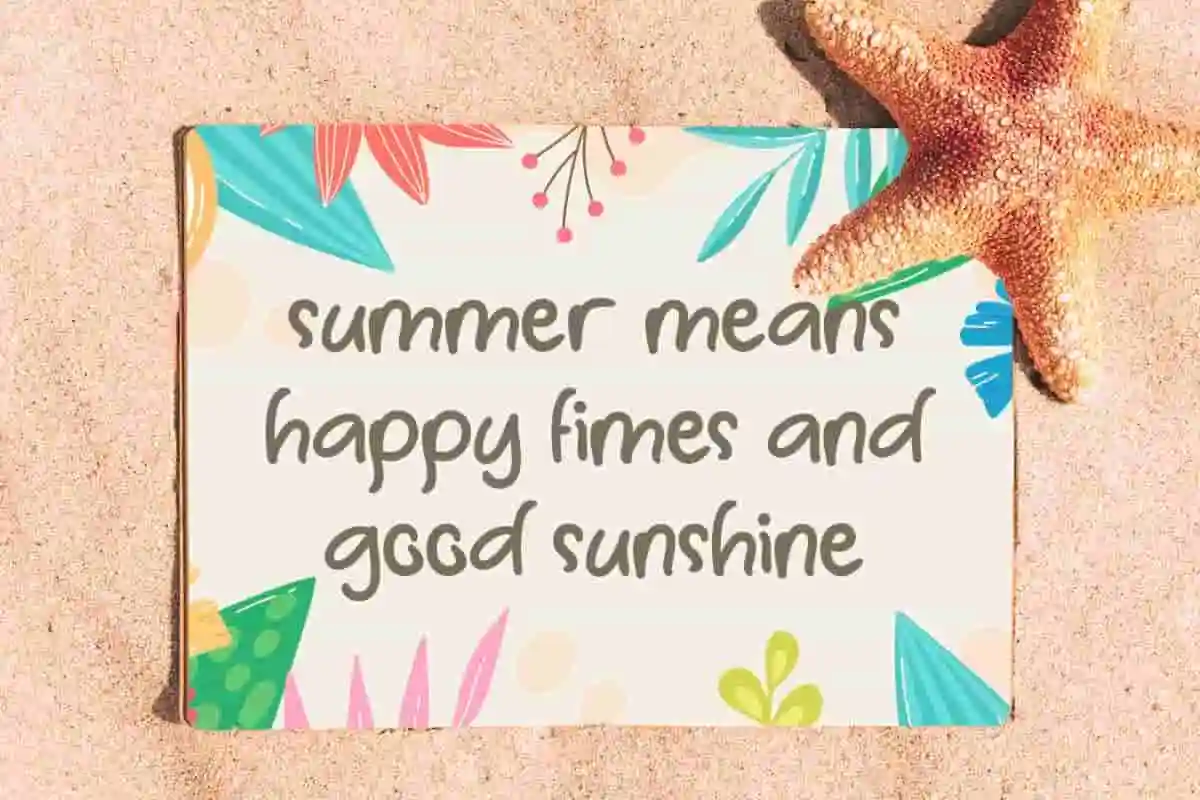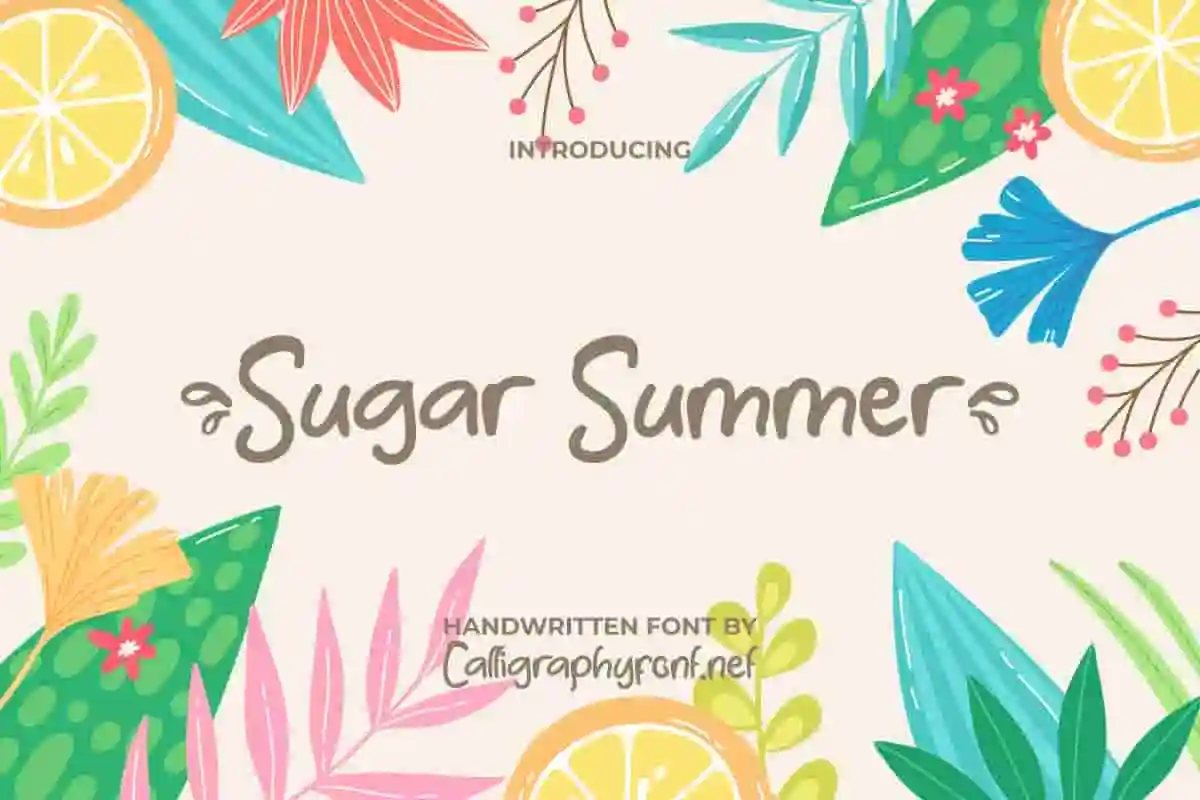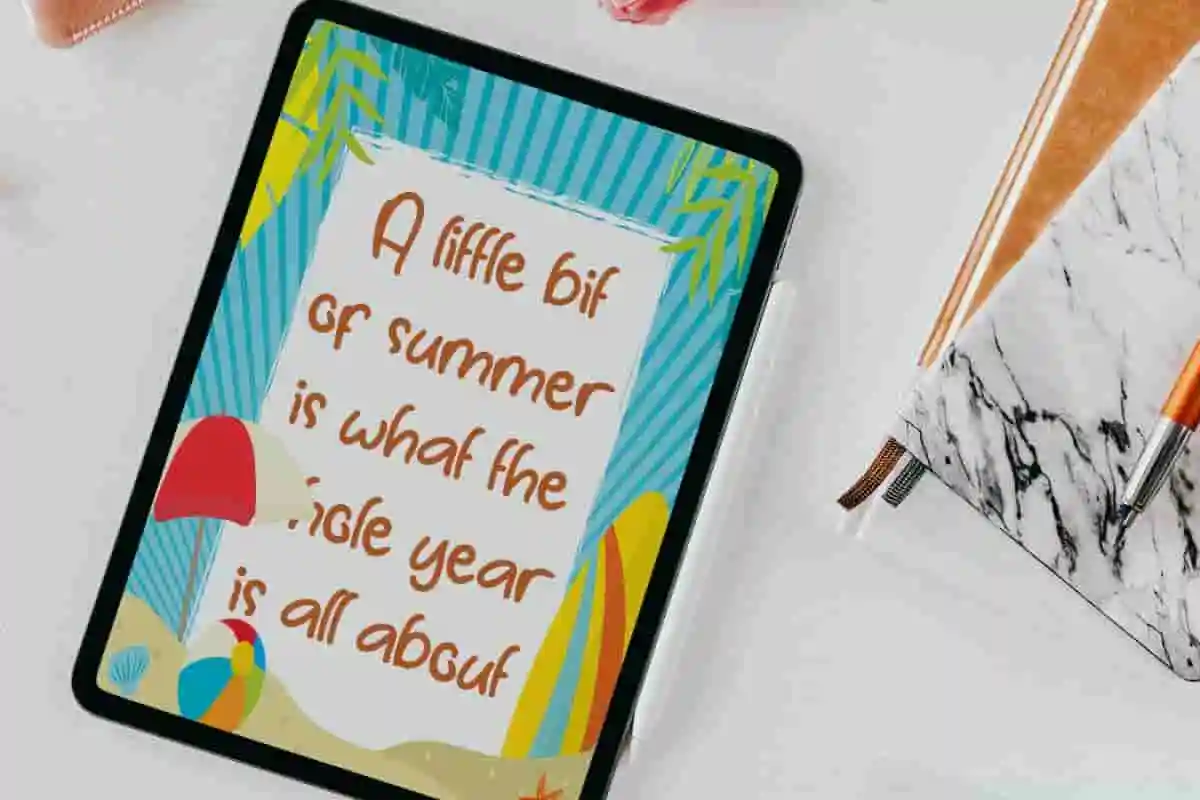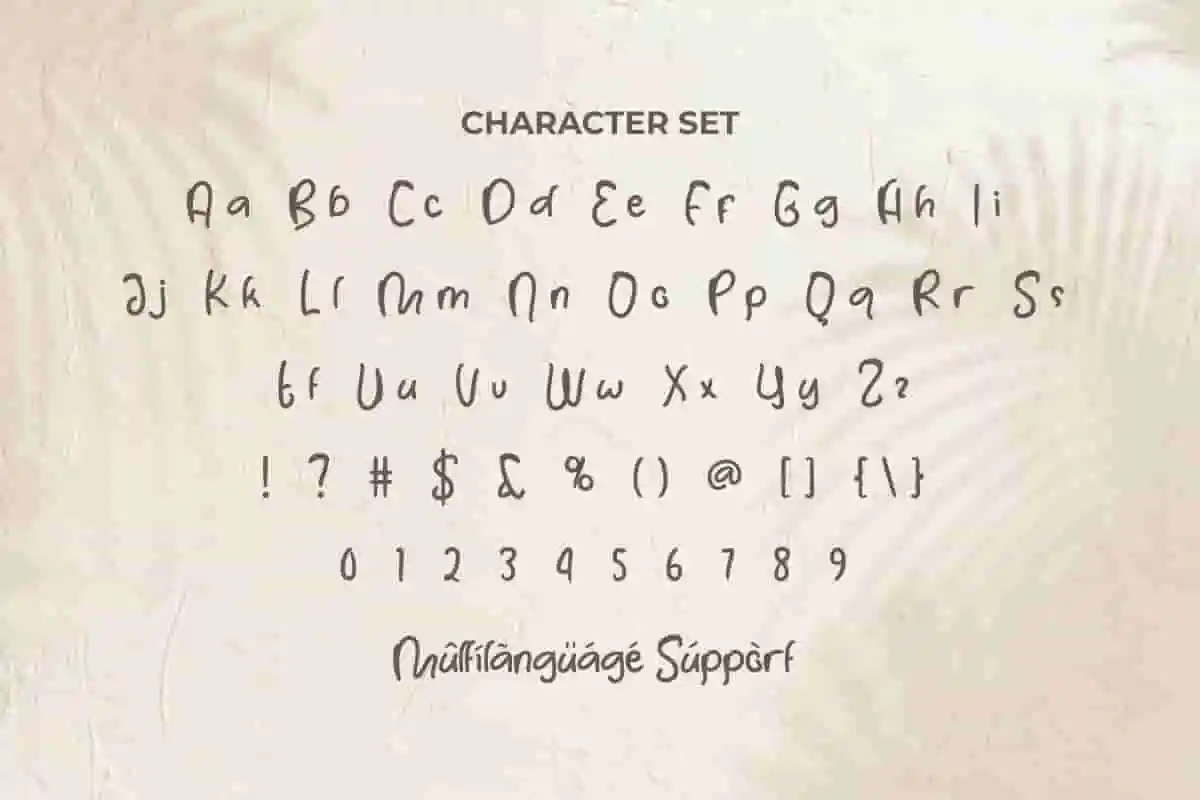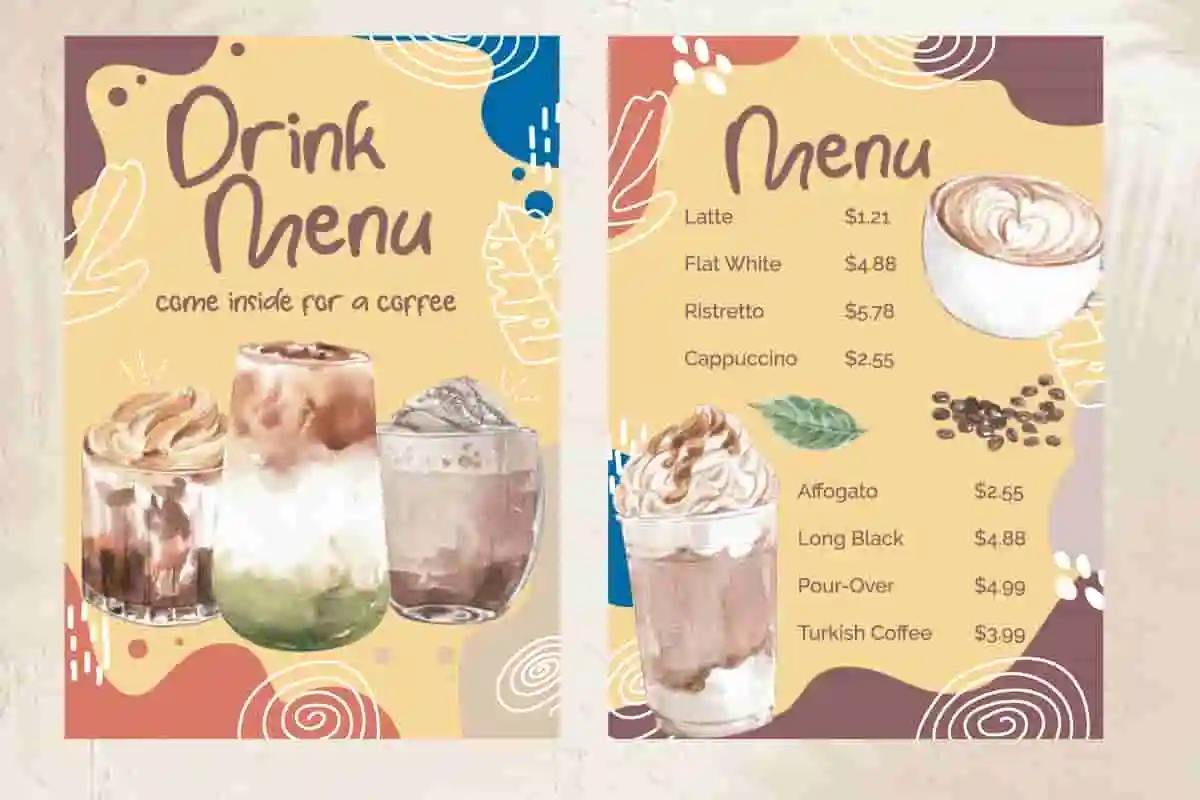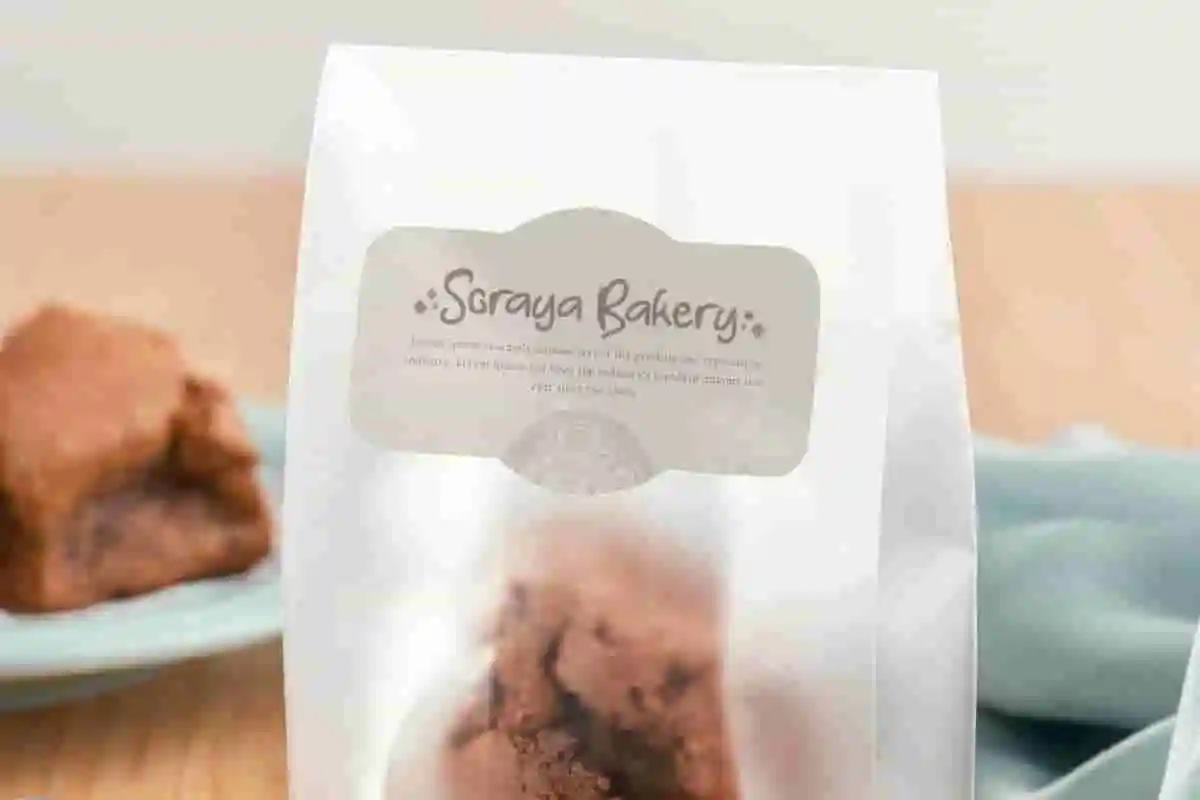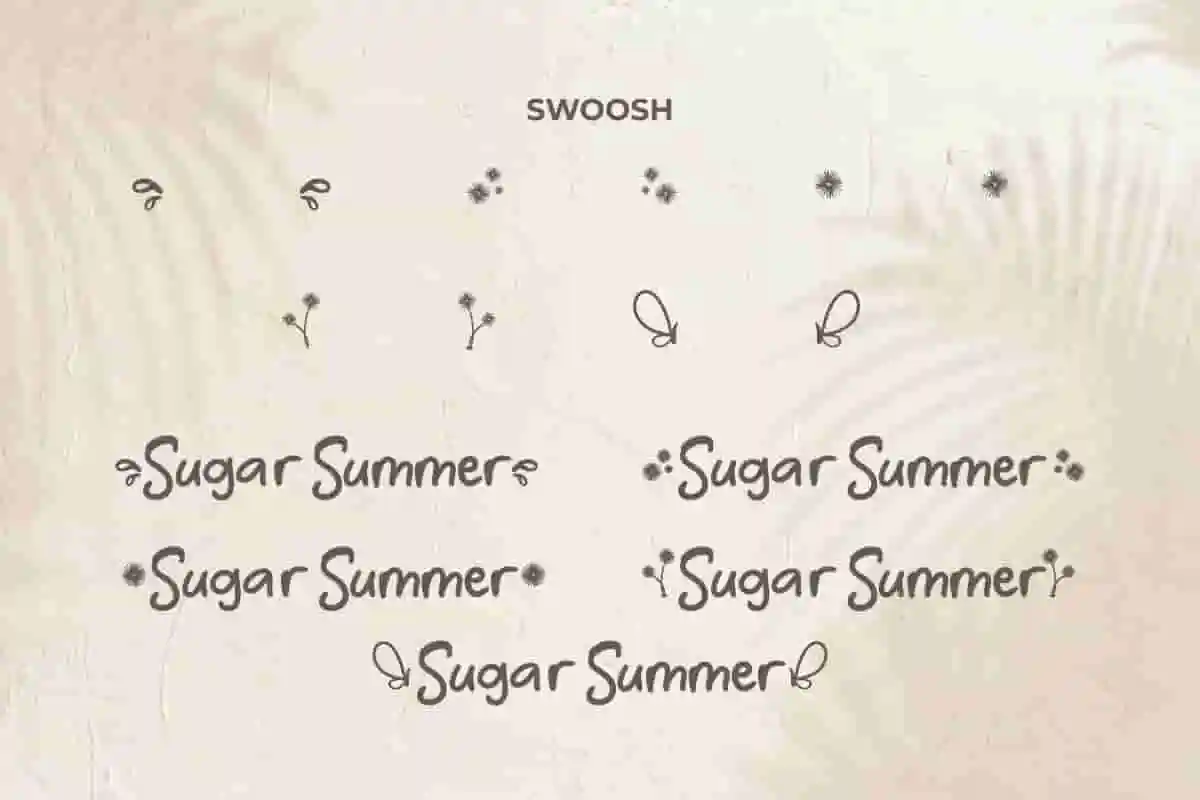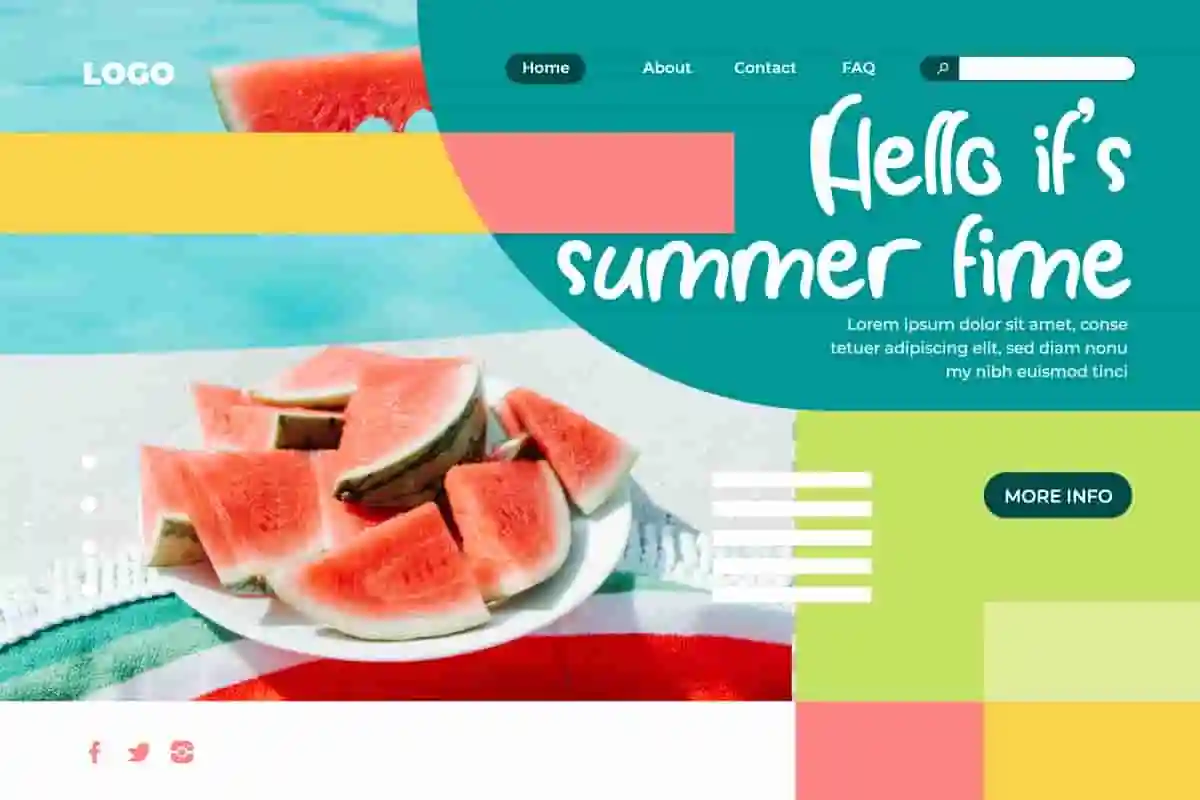
Sugar Summer Font
Sugar Summer Font is a refreshing handwritten font that will provide you a variety of charming letters for invitation, poster, custom design, and more!
Sugar Summer Font is a modern handwritten font with a fresh look. It will be great to perfect any project design, such as poster, menu, cover, invitation, flyer, brand image, brochure, label, custom design, screen print, packaging, sticker, social media post, thank you card, title, website, and many more!
The style that Sugar Summer Font has will suit and be used by many industries, such as advertising, travel agent, fashion, café, kids stuff, food and beverages, content creator, graphic design, handicraft, homeware, interior design, printing, publishing, etc.
Sugar Summer Font comes with a full set of Uppercase and Lowercase Basic Characters, Number, a large range of Punctuation, Symbol, and Swoosh. It also comes with multilingual character support. Ready to use both on Windows machine or Mac with simple installations. It’s tested to work well in the Adobe Apps (Illustrator, Adobe InDesign, Adobe Photoshop) CorelDraw, and others. PUA Encode Characters means you can access all the characters easily – Fully accessible without additional design software.